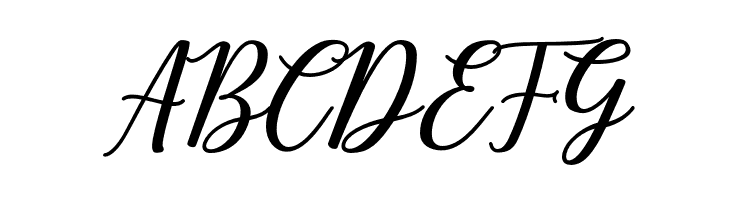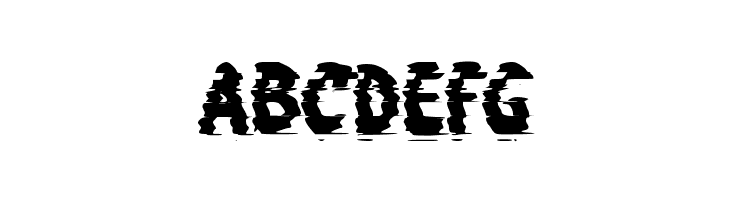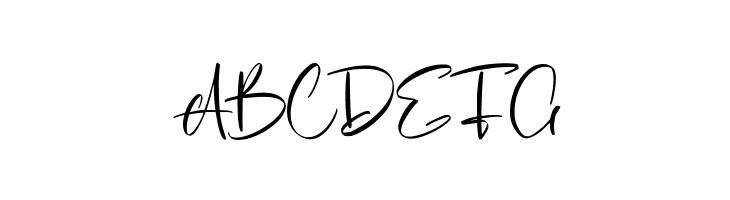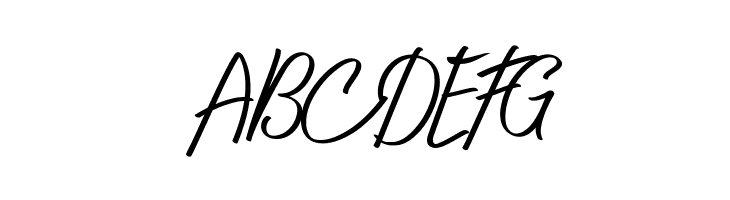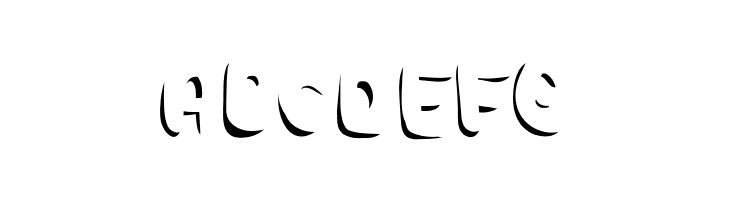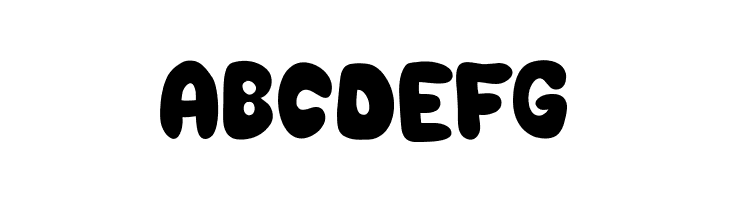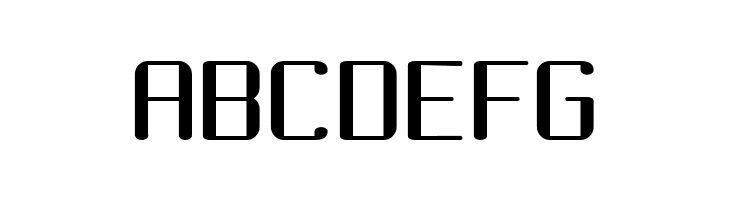
A playful, bold script font with smooth curves and lively style.
A bold, bubbly font with rounded edges and a playful, decorative style.
A playful, bold font with rounded edges and a bubbly appearance.
A playful, shadowed font with a bold, artistic style.
A modern, geometric font with rounded edges and a sleek design.
A modern, oblique font with a sleek and dynamic design.
A flowing, cursive font with elegant, sweeping strokes and a sophisticated appearance.
A dynamic and expressive handwritten font with fluid, flowing letterforms.
A bold, glitch-inspired font with a dynamic, distorted appearance.
A dynamic, expressive handwritten font with bold, fluid strokes and a modern, playful aesthetic.